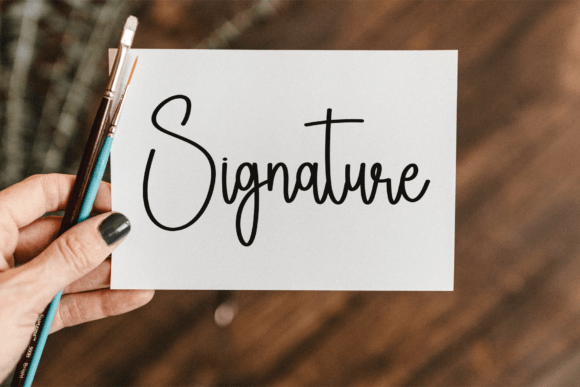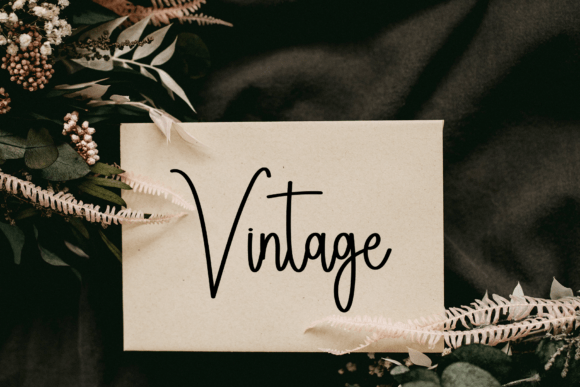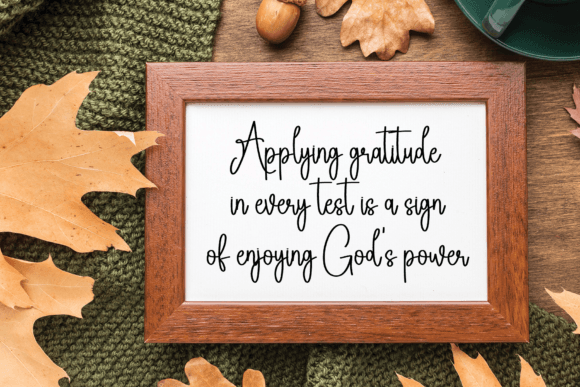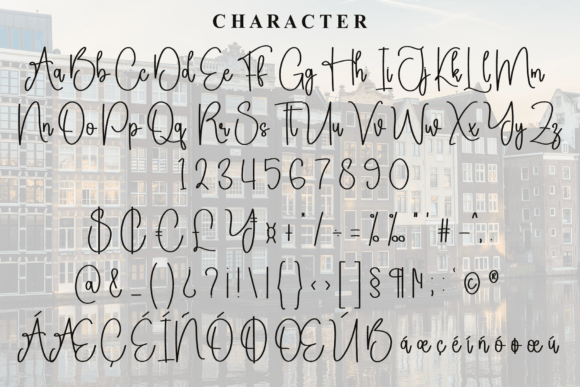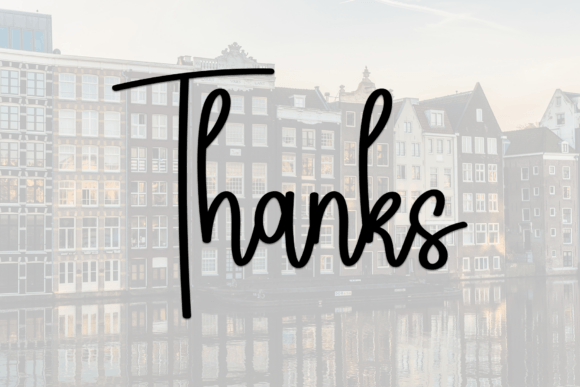
Introducing Amsterdam Font: Elevate Your Designs with Elegance and Charm
Are you looking for a font that can add a touch of sophistication and warmth to your designs? Look no further than Amsterdam Font, a stylish handwritten script font that exudes elegance and charm. With its fluid strokes and natural flow, this captivating font is perfect for designers and crafters who want to create beautiful and eye-catching designs.
The Characteristics of Amsterdam Font
Amsterdam Font is a handwritten script font that boasts fluid strokes and a natural flow, giving it a captivating and sophisticated look. Its elegant and charming appearance makes it perfect for adding a personal touch to various design projects, including invitations, branding, and social media graphics. The font’s unique characteristics include:
- Fluid strokes: Amsterdam Font features smooth and flowing strokes that give it a natural and effortless look.
- Natural flow: The font’s natural flow creates a sense of movement and energy, making it perfect for designs that require a touch of dynamism.
- Elegant and charming: Amsterdam Font’s elegant and charming appearance makes it perfect for designs that require a touch of sophistication and warmth.
Uses of Amsterdam Font
Amsterdam Font is a versatile font that can be used in various design projects, including:
- Invitations: Add a personal touch to your invitations, whether it’s a wedding invitation, birthday party invitation, or baby shower invitation.
- Branding: Use Amsterdam Font to create a unique and memorable brand identity that reflects your business’s personality and values.
- Social Media: Elevate your social media graphics with Amsterdam Font, whether it’s a Facebook post, Instagram story, or Twitter header.
- Stationery: Add a touch of elegance and charm to your stationery, including greeting cards, thank-you cards, and letters.
Benefits of Using Amsterdam Font
Using Amsterdam Font in your designs comes with several benefits, including:
- Unique and eye-catching: Amsterdam Font’s elegant and charming appearance makes it stand out from other fonts, ensuring that your designs grab attention.
- Versatile: The font’s versatility makes it suitable for various design projects, from invitations to branding and social media graphics.
- Easy to read: Amsterdam Font is easy to read, making it perfect for designs that require a clear and concise message.
- Customizable: The font can be customized to fit your design needs, including adjusting the size, color, and style.
Tips for Using Amsterdam Font
To get the most out of Amsterdam Font, here are some tips to keep in mind:
- Use it sparingly: Amsterdam Font is a statement font, so use it sparingly to avoid overwhelming your design.
- Pair it with other fonts: Pair Amsterdam Font with other fonts to create a unique and visually appealing design.
- Pay attention to spacing: Pay attention to the spacing between letters and words to ensure that your design looks clean and elegant.
Amsterdam Font is a stylish handwritten script font that exudes elegance and charm. Its fluid strokes and natural flow create a captivating and sophisticated look, making it perfect for designers and crafters who want to add a personal touch to their designs. With its versatility, ease of use, and customizable features, Amsterdam Font is an excellent choice for various design projects, from invitations to branding and social media graphics. So why not give it a try and elevate your designs with the elegance and charm of Amsterdam Font?